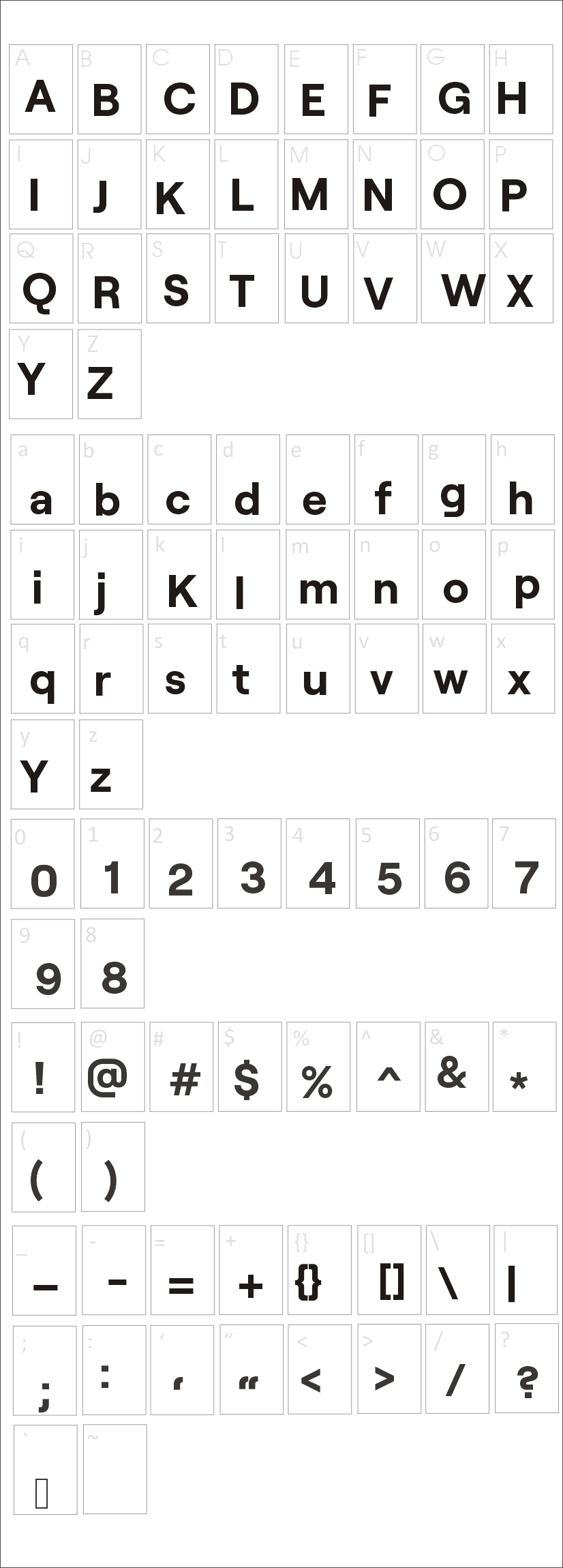
| Font Name: | Roobert Font Family |
| Font Designer: | Martin Vácha |
Roobert is a versatile font family designed to enhance your website’s visual appeal. With its clean lines, contemporary style, and excellent legibility. Roobert font is perfect for various projects, from blogs and portfolios to e-commerce websites and corporate presentations.
Key Features of the Roobert Font Family:
- Modern and Versatile: Roobert font’s sleek design makes it suitable for both modern and traditional projects.
- Excellent Legibility: The font’s clear and balanced letterforms ensure easy reading on various screen sizes and devices.
- Wide Character Support: Roobert font supports a broad range of languages and characters, making it a global-friendly choice.
- Multiple Weight Options: The font family includes multiple weight options (e.g., Regular, Bold, Italic), allowing you to find the perfect style for your specific needs.
- Consistent Appearance: Roobert’s consistent design across different weights and styles ensures a harmonious and professional look.
Use Cases for Roobert Font Family:
- Websites: Use Roobert for headlines, body text, and other typographic elements to create a visually appealing and modern website.
- Branding: Incorporate Roobert into your branding materials, such as logos, business cards, and social media graphics.
- Print Design: Use Roobert for brochures, flyers, and other print materials to add a touch of sophistication and elegance.
- Presentations: Enhance your presentations with Roobert’s clean and professional typography.
- Packaging and Signage: The font’s clarity and modern aesthetic make it suitable for packaging, product labels, and signage.